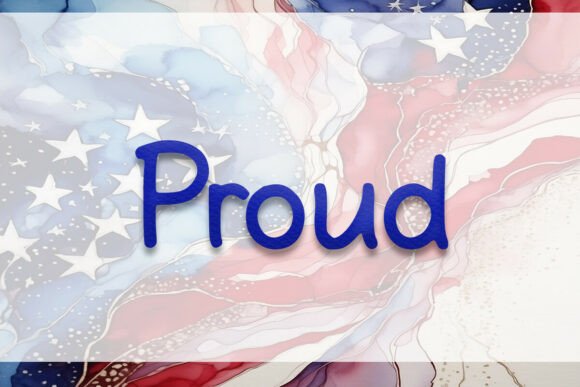
Introduction to Proud Font
Steeped in style and versatility, the Proud Font promises to amplify your creativity like no other.
Tailor-made for advertising materials, this font displays an authoritative yet friendly aura that instantly grabs attention Drenched with character, it’s an apt choice for writing captivating blog posts.
Key Features of Proud Font
Why Choose Proud Font?
Proud Font offers exceptional quality and versatility, making it a valuable addition to your design toolkit. Whether you’re creating for personal projects or commercial use, Proud Font delivers professional results.